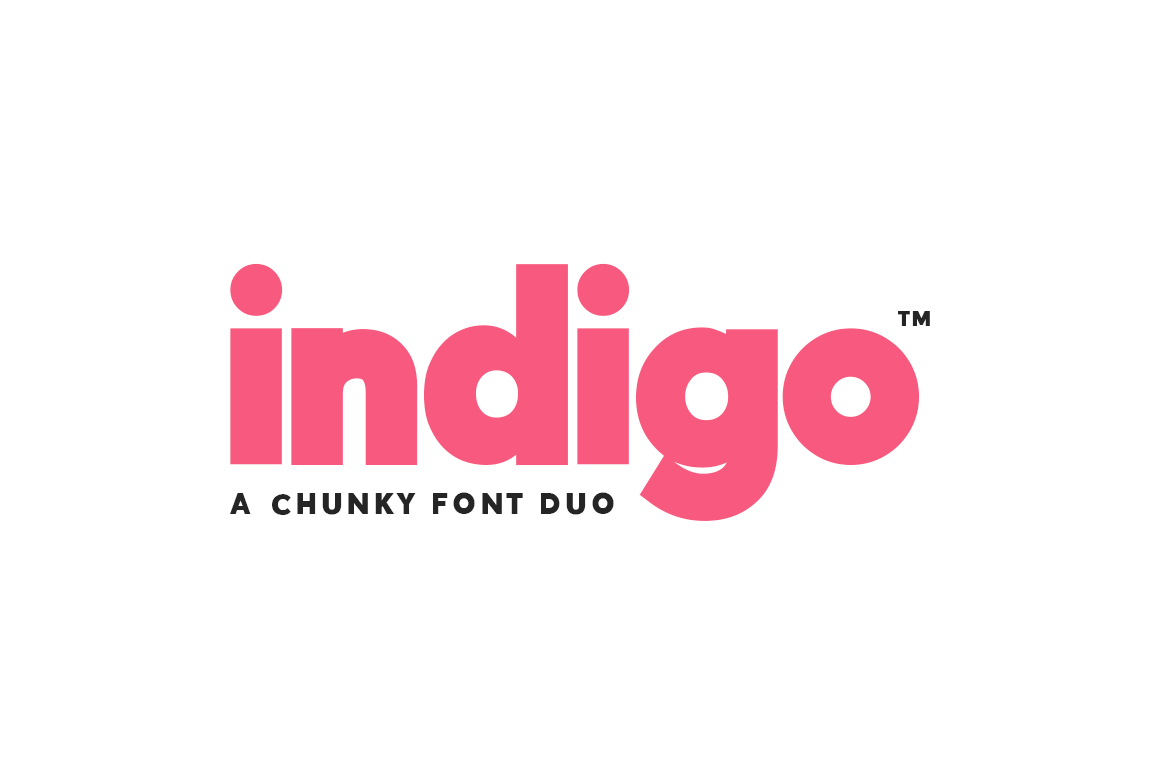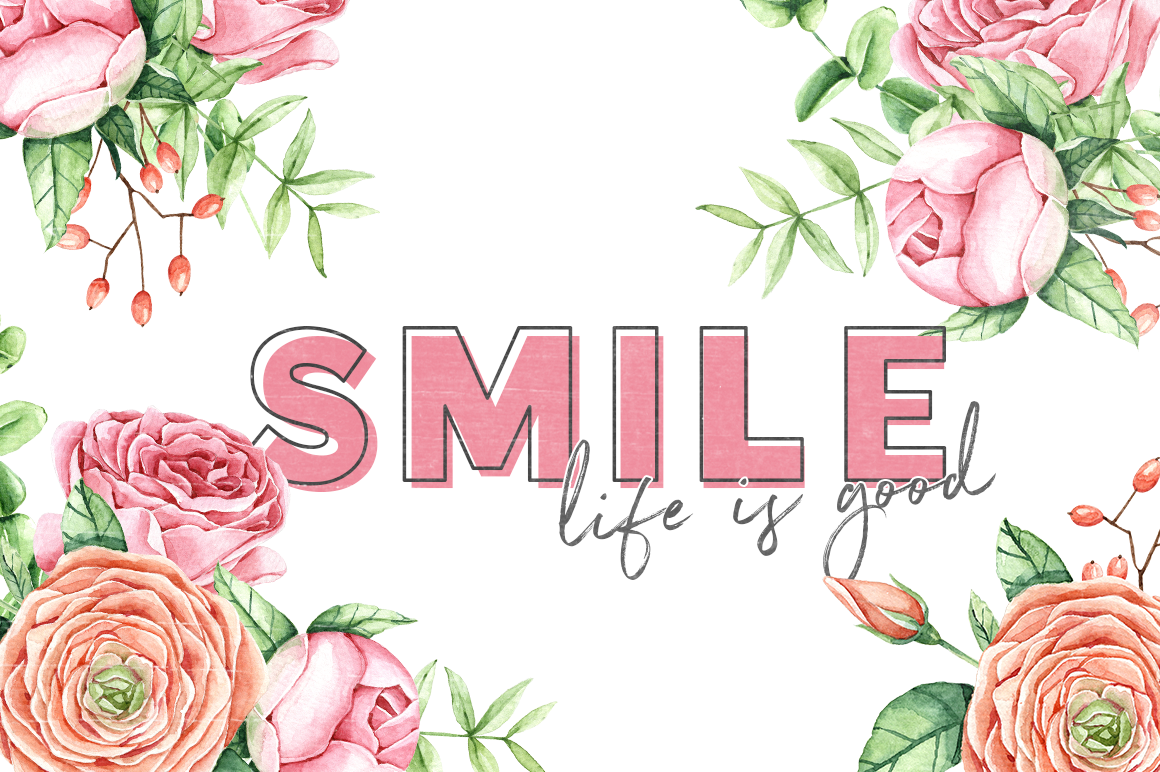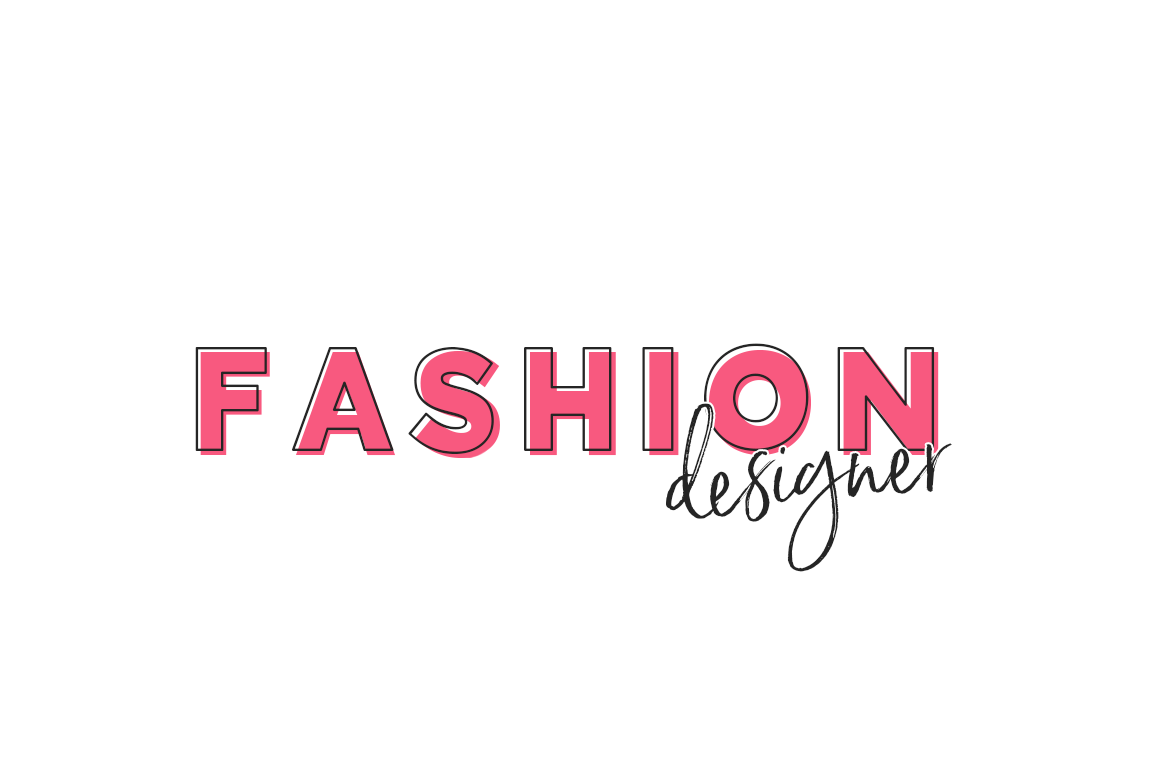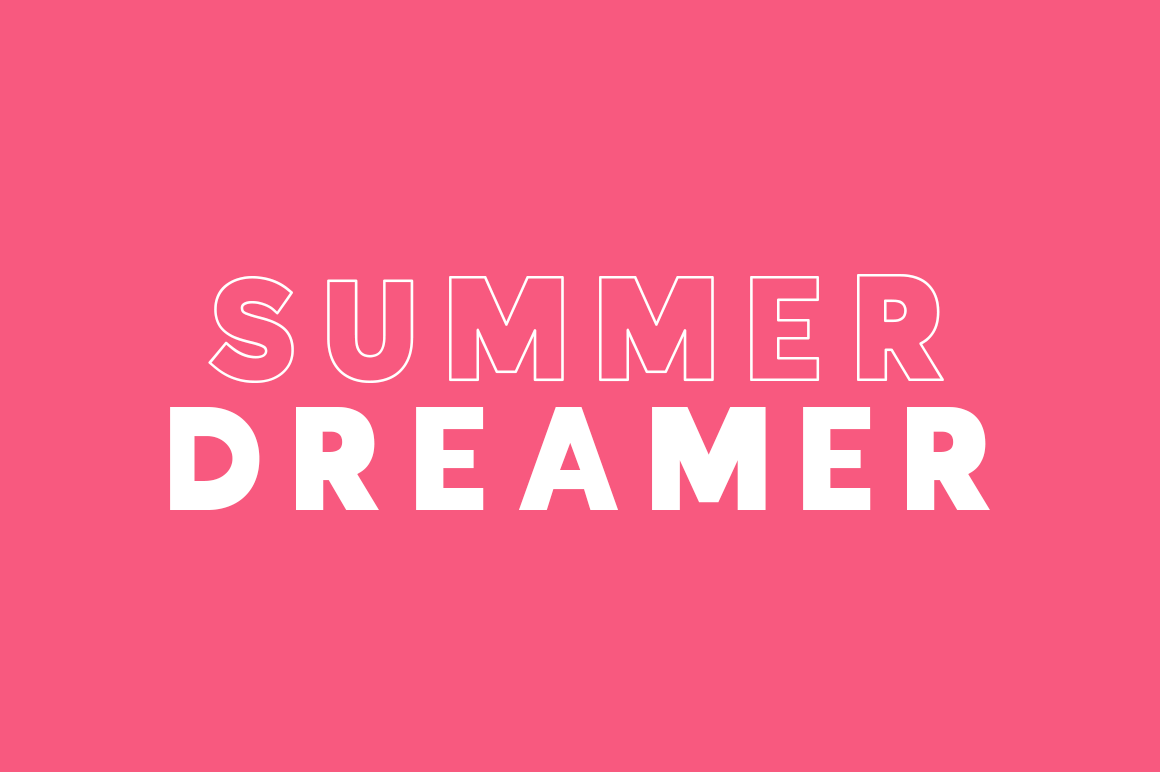
Indigo Font Duo Font
About the Indigo Font Duo Font
Let us introduce you to Indigo Font Duo Font, where timeless design meets modern craftsmanship. “Our brand new font duo ‘Indigo’ won’t give you the blues… It’s a fab combo of the sans serif ‘Indigo Regular’ and the outline version ‘Indigo Outline’. Combine the two for sophisticated yet edgy designs or be bold enough to use them alone. Perfect for stand-out headers, Instagram posts, logos, web design and much more!
Indigo Regular excels as a headline font for projects requiring a modern and bold aesthetic. Its clean lines work well in branding applications, particularly logos and short taglines, and also shine on social media graphics and posters. However, its strong character makes it less suitable for body copy or lengthy text blocks; readability suffers at smaller sizes.
Indigo Outline adds a layer of sophistication and edginess. Use it sparingly as an accent, overlaying Indigo Regular for a striking visual effect, or independently for impactful short phrases. Consider pairing Indigo with a classic serif like Garamond for a refined contrast, or a geometric sans-serif like Futura for a more contemporary feel.
The overall personality of the Indigo duo is confident and contemporary, lending itself well to brands aiming for a stylish and impactful image. Avoid using it for projects needing a friendly or overly playful feel.